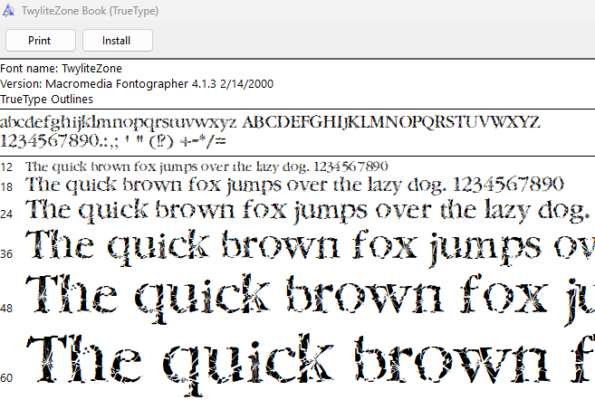
Listed below is the official font that is used in the The Twilight Zone tv series and movie logo.
The Twilight Zone is a TV series that dates all the way back to 1959. Created by Rob Sterling, The Twilight Zone is a SCI-FI, horror, comedy, thriller, and drama-style show. What sets this show apart from others is the fact that it has four series decades apart from each other. Whilst the first series was released in 1959, the fourth series was released in 2019. This show has spanned over five decades, inspired multiple movies and spin-offs, it has even inspired theme park rides. This TV show is so popular that it was rated the fourth best show on a 60 greatest drama list put out by TV guide.
Like with all good TV shows, it has its own font, aptly named The Twilight Zone font. This font is very similar to the font Bernhard Modern. It’s a spooky design, similar to what you’d see in old vampire movies. The stretched letters, the uneven placement, and the jagged edges really help to make this font stand out. Back to the show! This show tells a new story every episode, with new characters for each one. The episodes vary in content, from monsters and demons to major plot twists that leave viewers scratching their heads. This show has lived on through the decades, adapting and changing for audiences as time went on, making it one of the rare shows that is just as relevant today as it was back in 1959.